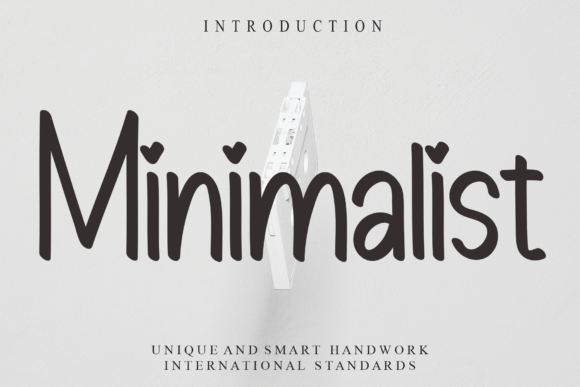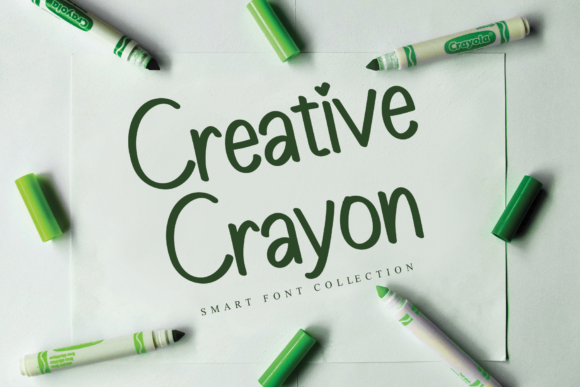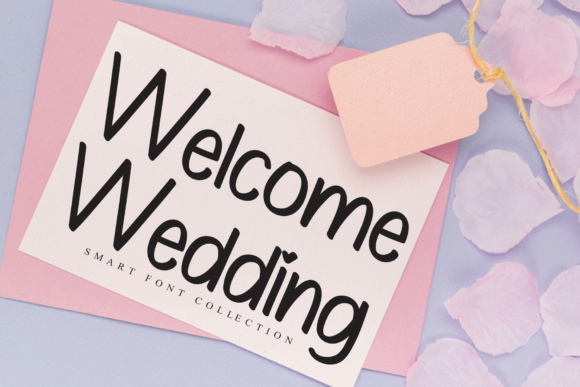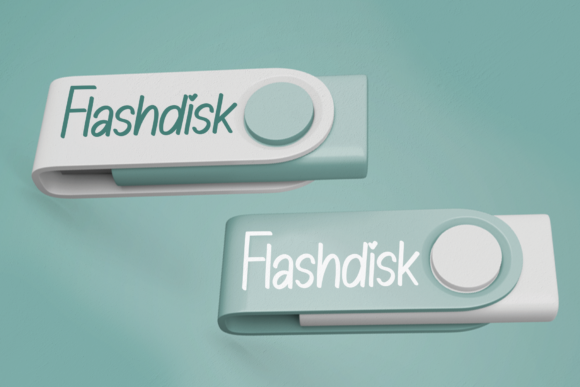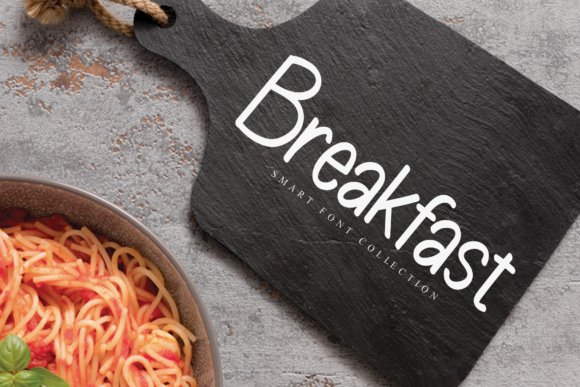
Minimalist Font
About Minimalist Font
Minimalist is a sweet and friendly handwritten font. Its natural and unique style makes it incredibly fitting to a large pool of designs. The only limit is your imagination!